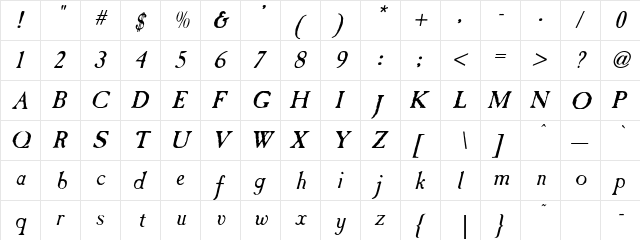
Tintinabulation Old Italic Regular
Design Context for Tintinabulation Old Italic Typeface
Tintinabulation Old Italic takes a measured approach to typography — its balanced proportions and neutral character make it a reliable workhorse for both digital and print work. Its italic angle brings a sense of urgency and motion to the letterforms.
Pro Tip: Use Tintinabulation Old Italic for emphasis, pull quotes, and subheadings where its slanted energy can add rhythm to the layout.